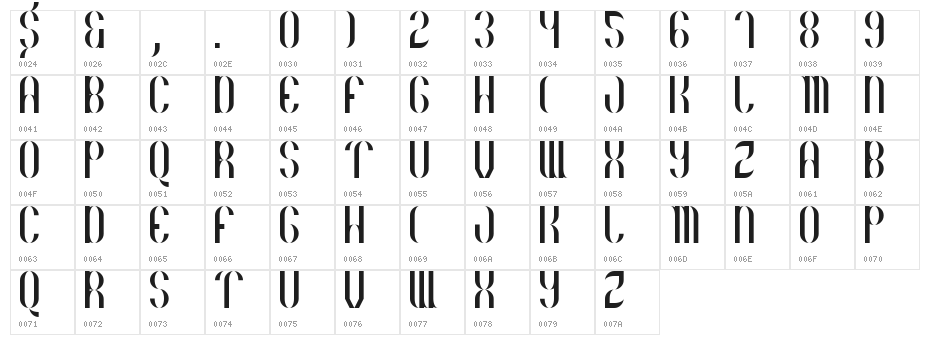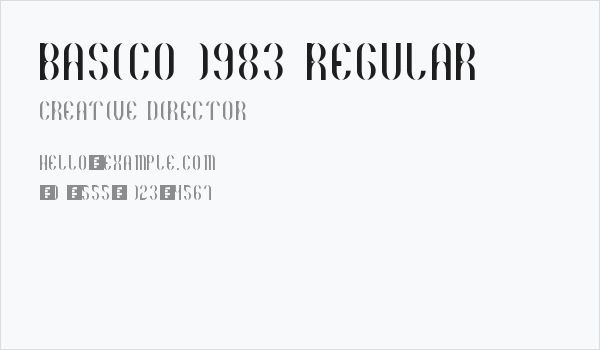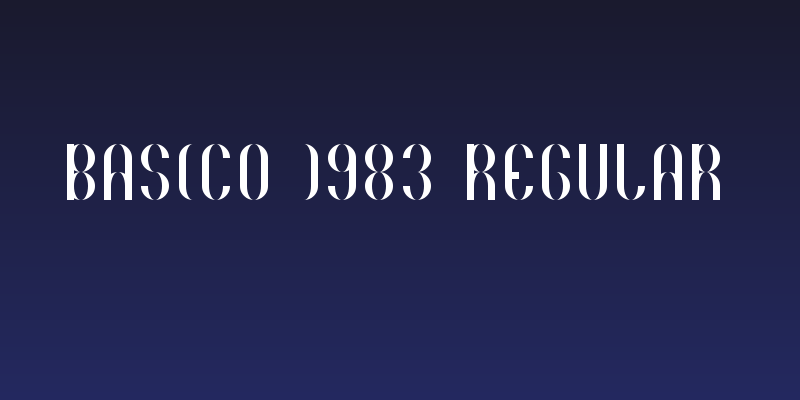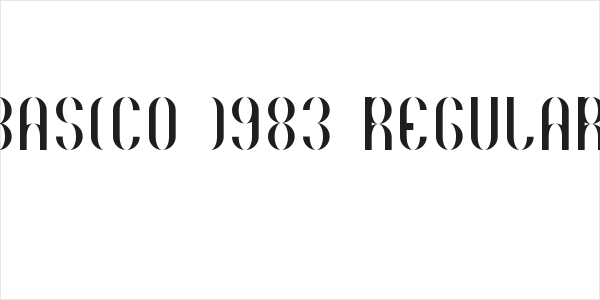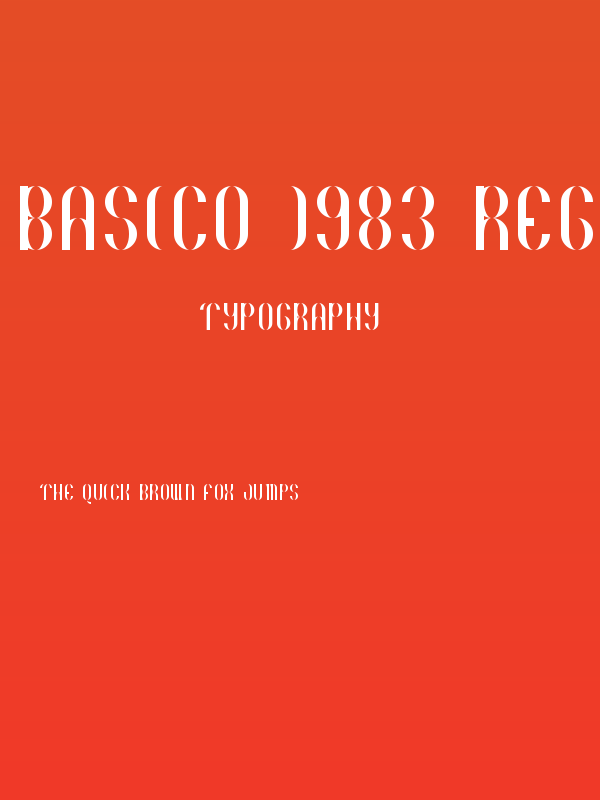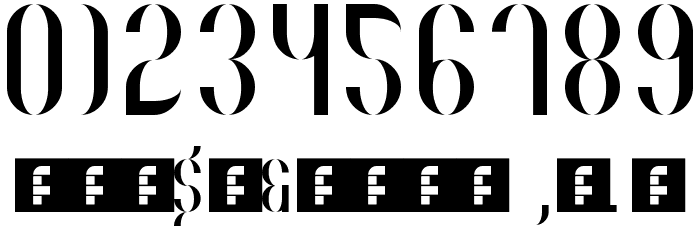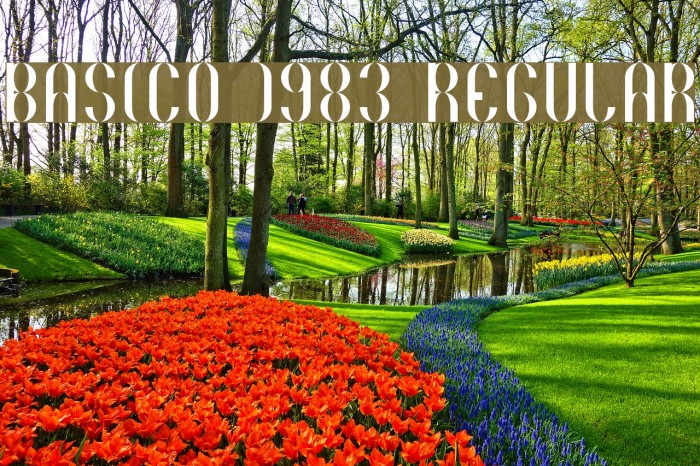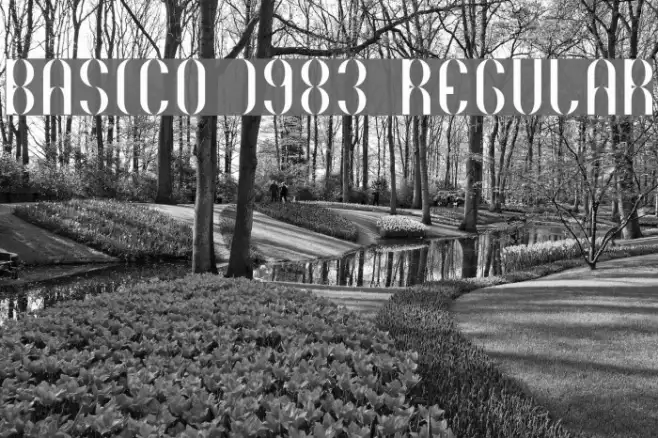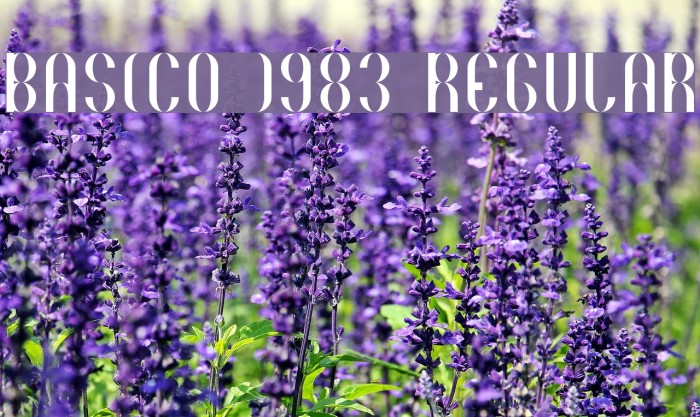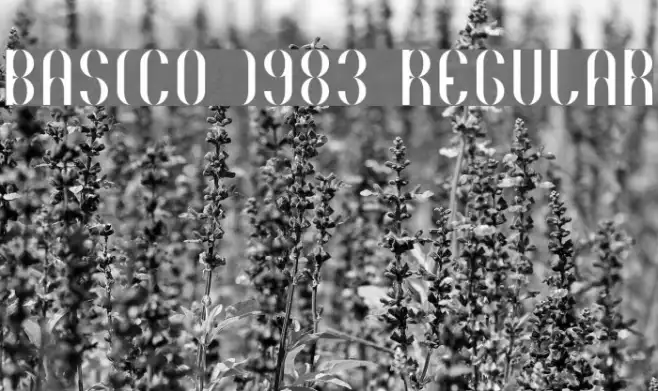
Basico 1983 Regular Font
Basico 1983 Regular Description
This font features a bold and striking design with high contrast between thick and thin strokes, creating a dramatic and eye-catching appearance. The characters are uniquely styled with sharp angles and curves, giving it a modern and artistic flair. The uppercase and lowercase letters maintain a consistent style, while the numerals and special characters complement the overall aesthetic. The font's distinctiveness makes it suitable for creative and bold design projects.
| Proposed Projects | Ideal for branding, poster design, album covers, and any project requiring a bold statement. |